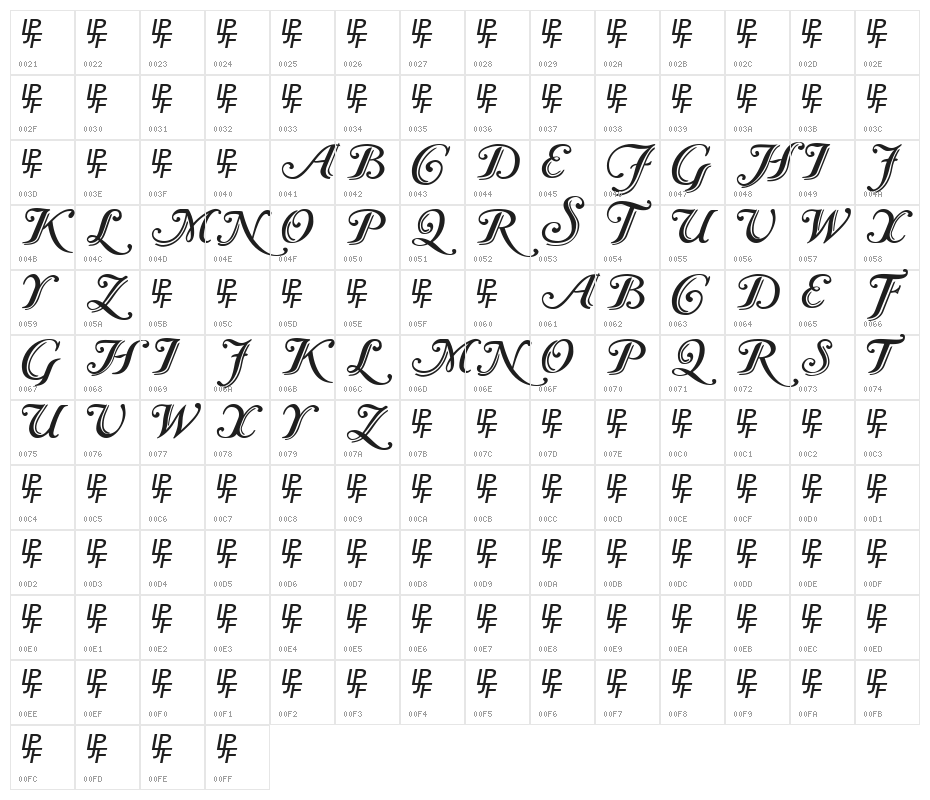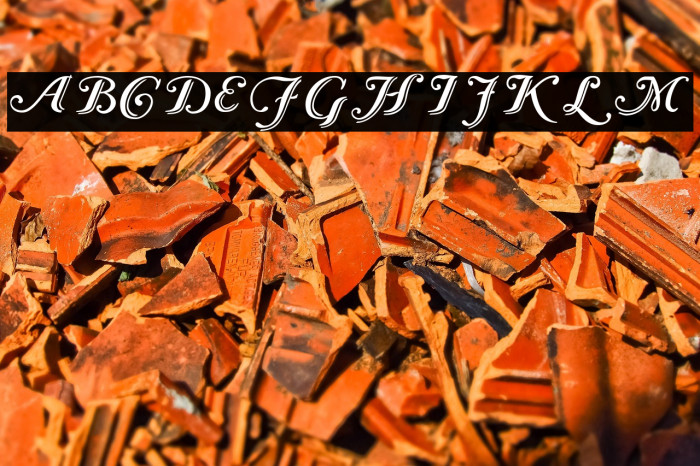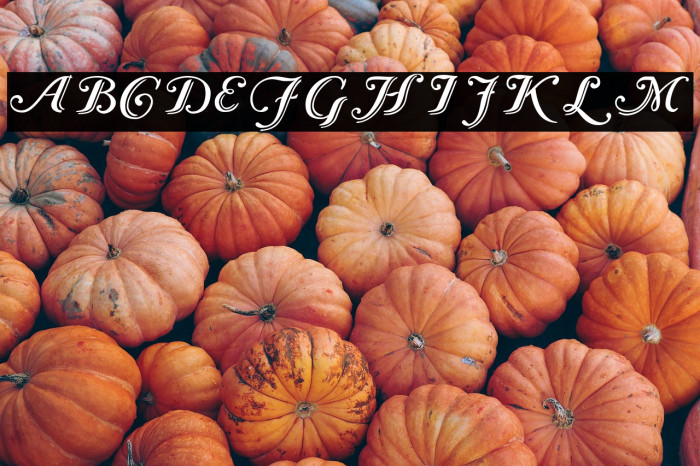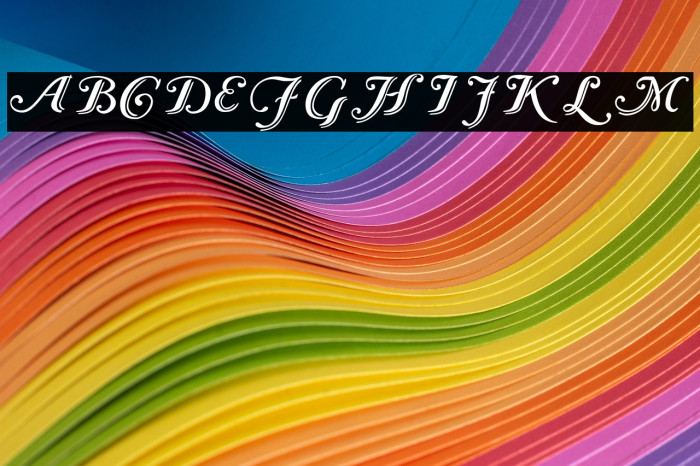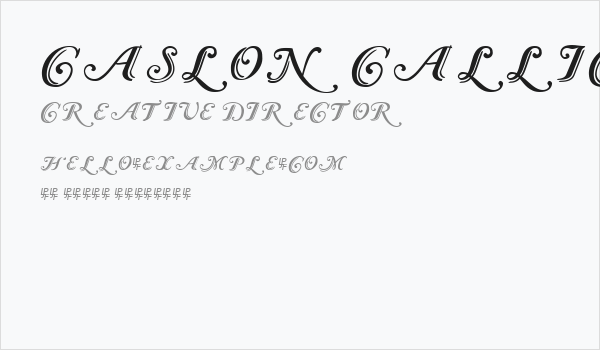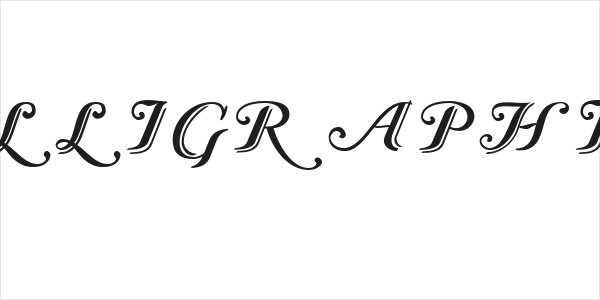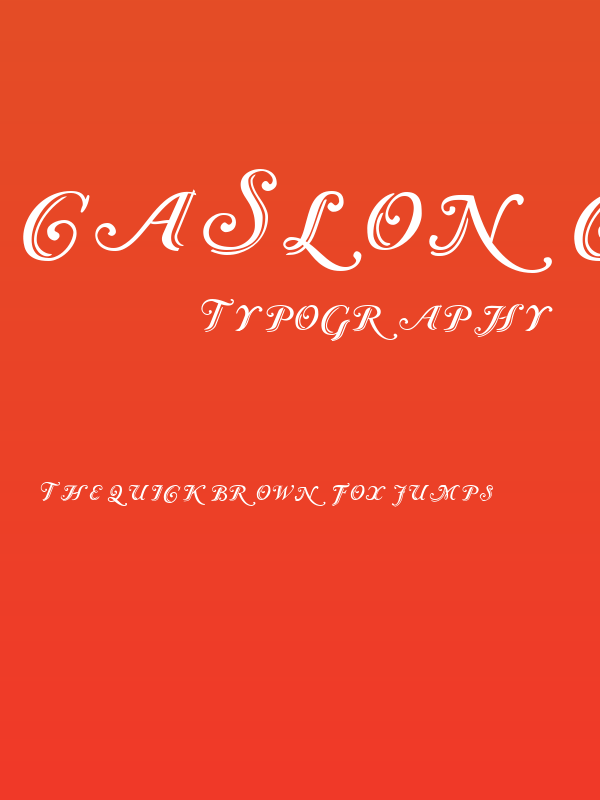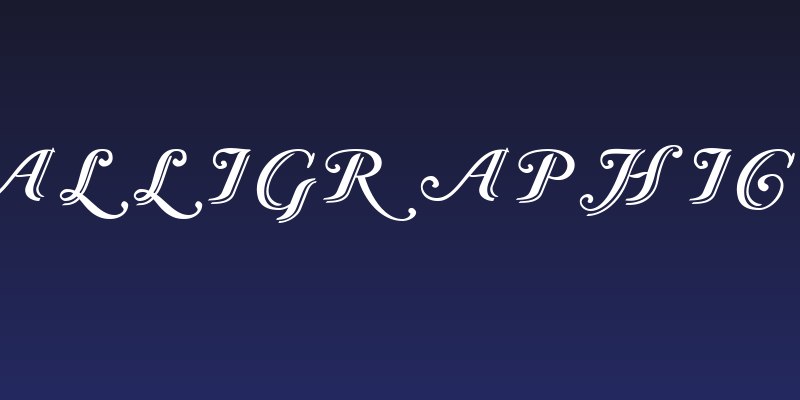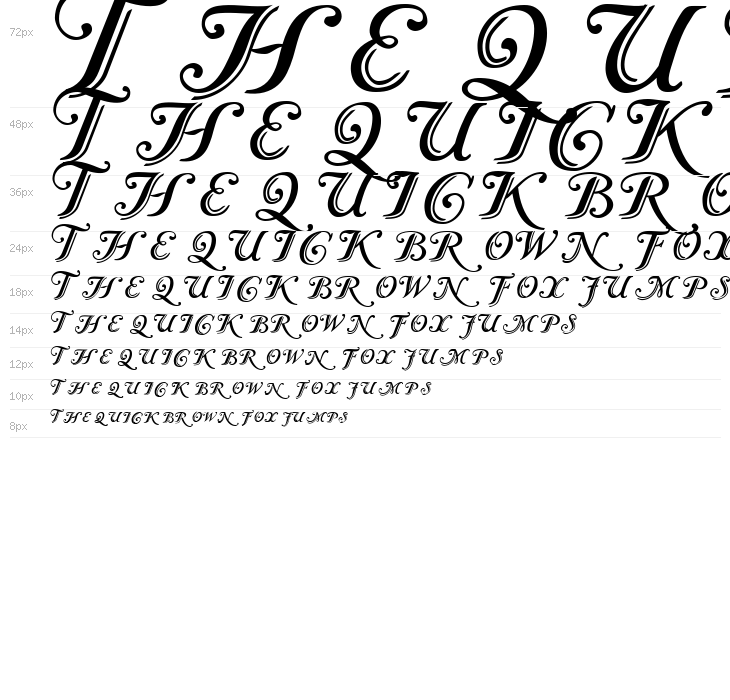
Caslon Calligraphic Initials Font
Caslon Calligraphic Initials Description
This font exudes a classic and elegant style, characterized by its calligraphic flair and decorative serifs. The uppercase letters are adorned with intricate swashes and flourishes, giving them a sophisticated and ornate appearance. The lowercase letters maintain a similar aesthetic, with a consistent flow and graceful curves. The numerals are bold and slightly condensed, providing a strong visual impact. Special characters are designed with the same attention to detail, enhancing the overall decorative feel. This font is ideal for projects that require a touch of elegance and tradition.
| Proposed Projects | Ideal for wedding invitations, formal event programs, luxury branding, and elegant packaging design. |